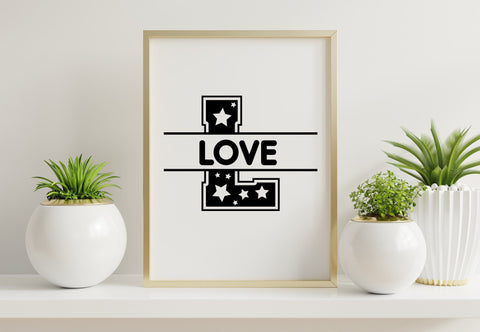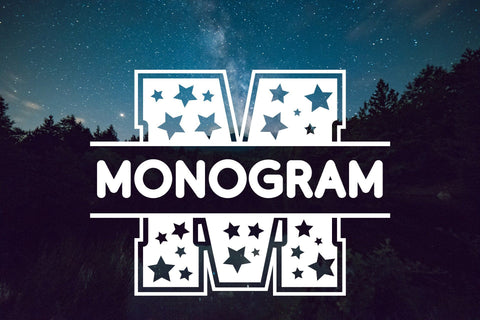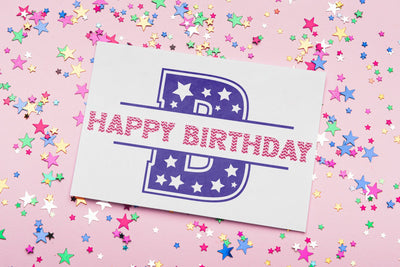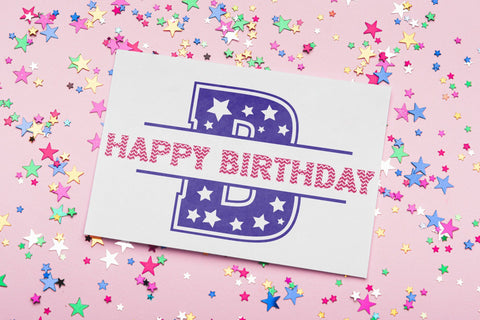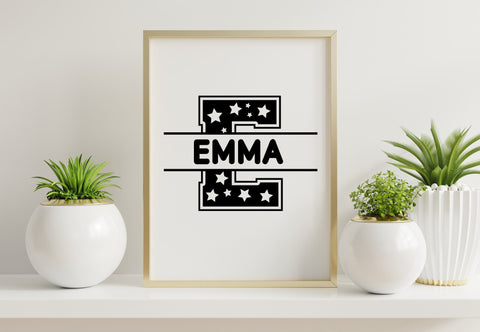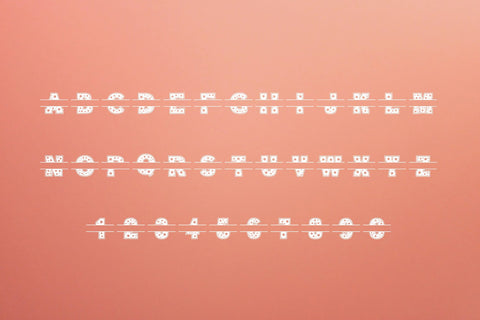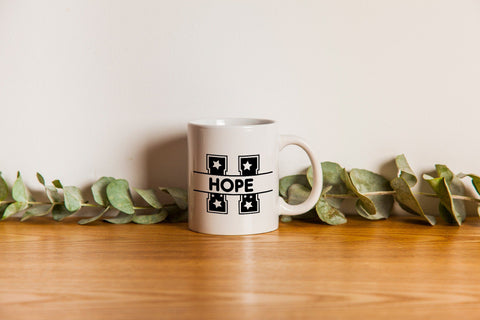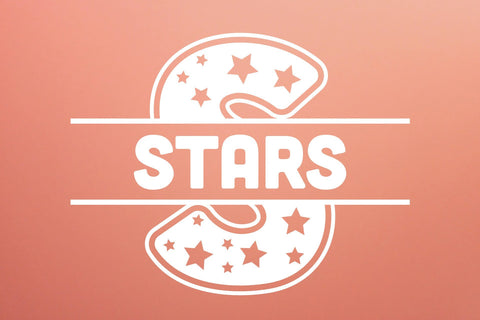
Stars Monogram Font
Stars Monogram is an incredibly cool, jolly and fun looking decorative font. Add it to a variety of creations that require a celebration theme, and you will love the outcome.